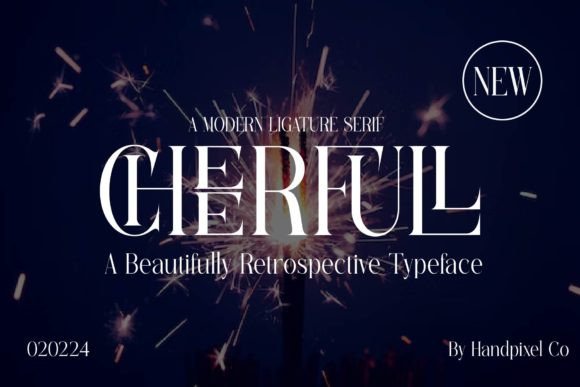
Introducing Cherfull: The Elegant Serif Font for Your Stunning Projects
When it comes to selecting the perfect font for your design project, the options can be overwhelming. However, if you’re looking for a font that exudes elegance, sophistication, and a touch of classic charm, look no further than Cherfull. This beautiful serif font is designed to add a delicate and classy look to your projects, making it an excellent choice for a wide range of applications.
What is Cherfull?
Cherfull is an elegant serif font that features a very delicate and classy look. Not too thin and not too thick, balanced and varied, Cherfull was designed to enhance the beauty of your projects. Its unique design makes it an excellent choice for those who want to add a touch of sophistication to their work.
Key Features of Cherfull Font
- Elegant Serif Design: Cherfull boasts a classic serif design that adds a touch of elegance to any project.
- Balanced and Varied: The font features a perfect balance of thick and thin lines, making it easy to read and visually appealing.
- Delicate and Classy Look: Cherfull’s delicate design makes it an excellent choice for projects that require a touch of sophistication.
- Versatile: Cherfull is suitable for a wide range of projects, from print materials to digital applications.
Ideas for Using Cherfull Font
Cherfull is a versatile font that can be used in a variety of projects. Here are a few ideas to get you started:
- Print Materials: Use Cherfull for brochures, flyers, posters, and other print materials that require a touch of elegance.
- Digital Applications: Cherfull is perfect for e-books, digital magazines, and websites that require a sophisticated font.
- Branding and Identity: Use Cherfull as a logo font or for branding materials that require a classic and elegant look.
- Packaging Design: Cherfull can add a touch of sophistication to packaging design, making it an excellent choice for luxury brands.
Tips for Pairing Cherfull with Other Fonts
Pairing Cherfull with other fonts can enhance its beauty and create a unique look. Here are a few tips for pairing Cherfull with other fonts:
- Pair with Sans-Serif Fonts: Pairing Cherfull with sans-serif fonts like Arial or Helvetica can create a nice contrast and add visual interest to your design.
- Use with Script Fonts: Pairing Cherfull with script fonts like Pacifico or Great Vibes can add a touch of elegance and sophistication to your design.
- Experiment with Font Sizes: Experimenting with different font sizes can create a visually appealing hierarchy of information.
In conclusion, Cherfull font is an elegant serif font that can add a touch of sophistication and elegance to your projects. Its delicate design, balanced and varied strokes, and classic charm make it an excellent choice for a wide range of applications. By using Cherfull font, you can improve readability, increase engagement, and establish your brand’s identity.